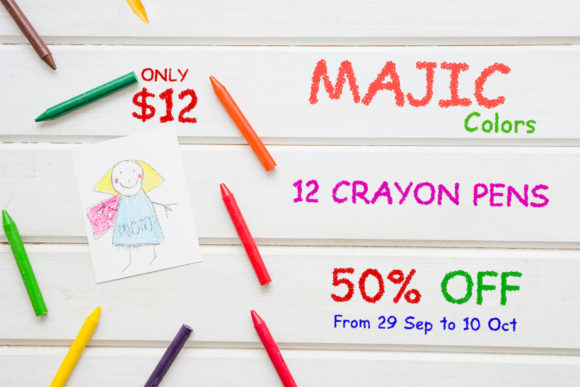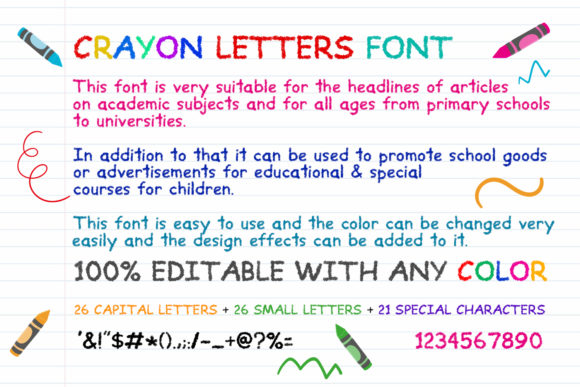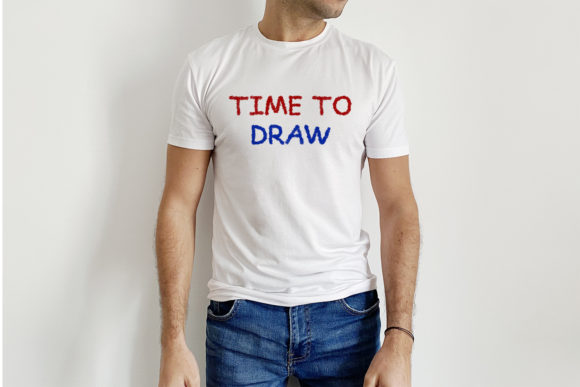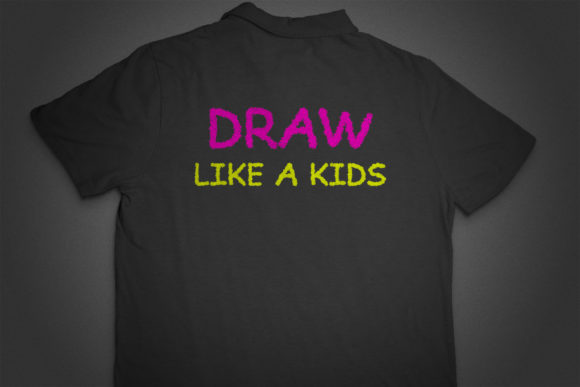
Crayon Letters Font: A Colorful and Unique Handwritten Font for Your Designs
Are you looking for a font that can add a touch of playfulness and creativity to your designs? Look no further than Crayon Letters Font! This beautiful and unique handwritten font is perfect for a wide range of design projects, from children’s books and educational materials to craft projects and DIY tutorials. In this article, we’ll take a closer look at Crayon Letters Font and explore its features, benefits, and uses.
What is Crayon Letters Font?
Crayon Letters Font is a simple yet colorful font that is designed to resemble handwritten letters drawn with crayons. The font features a unique and playful style that is sure to capture the attention of your audience. With its bold lines, bright colors, and whimsical feel, Crayon Letters Font is perfect for designs that require a personal and creative touch.
Features of Crayon Letters Font
Crayon Letters Font has several features that make it a great choice for designers and crafters. Some of its key features include:
- Unique and playful style: Crayon Letters Font has a one-of-a-kind style that is sure to stand out in any design.
- Colorful and vibrant: The font features bright, bold colors that are perfect for designs that require a pop of color.
- Handwritten feel: Crayon Letters Font has a handwritten feel that gives it a personal and authentic touch.
- Easy to read: Despite its playful style, Crayon Letters Font is easy to read and understand, making it perfect for designs that require clear communication.
Benefits of Using Crayon Letters Font
There are several benefits to using Crayon Letters Font in your designs. Some of the benefits include:
- Adds a personal touch: Crayon Letters Font gives your designs a personal and creative touch that sets them apart from more traditional fonts.
- Perfect for kids’ designs: The font’s playful style and bright colors make it perfect for designs aimed at children, such as children’s books, educational materials, and kids’ craft projects.
- Great for craft projects: Crayon Letters Font is perfect for craft projects, such as DIY tutorials, craft patterns, and handmade cards.
Uses of Crayon Letters Font
Crayon Letters Font is a versatile font that can be used in a wide range of designs. Some of the most popular uses for the font include:
- Children’s books and educational materials: The font’s playful style and bright colors make it perfect for children’s books, educational materials, and activity sheets.
- Craft projects and DIY tutorials: Crayon Letters Font is great for craft projects, such as DIY tutorials, craft patterns, and handmade cards.
- Kids’ party decorations and invitations: The font’s colorful and playful style makes it perfect for kids’ party decorations, invitations, and party favors.
- Social media graphics and posts: Crayon Letters Font can be used to create eye-catching social media graphics and posts that are sure to grab the attention of your audience.
Tips for Using Crayon Letters Font
Here are a few tips for using Crayon Letters Font in your designs:
- Use it with bright colors: Crayon Letters Font looks best with bright, bold colors, so don’t be afraid to experiment with different color combinations.
- Mix it with other fonts: Crayon Letters Font can be paired with other fonts to create a unique and interesting design.
- Use it for headings and titles: The font’s bold and playful style makes it perfect for headings and titles.
In conclusion, Crayon Letters Font is a beautiful and unique handwritten font that is perfect for a wide range of design projects. Its playful style, bright colors, and handwritten feel make it a great choice for designers and crafters who want to add a personal touch to their designs. Whether you’re creating children’s books, craft projects, or social media graphics, Crayon Letters Font is sure to bring a smile to your audience’s face.